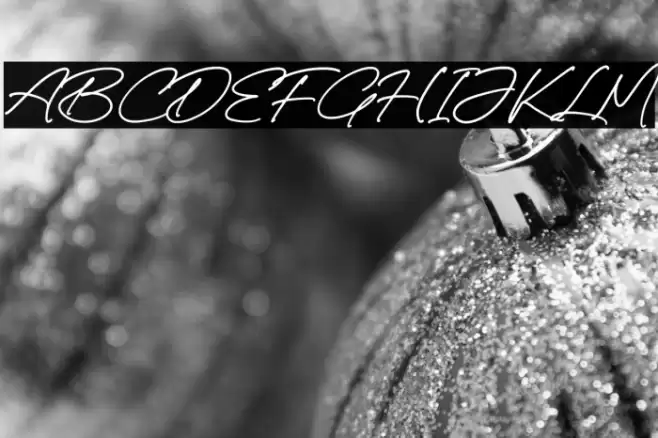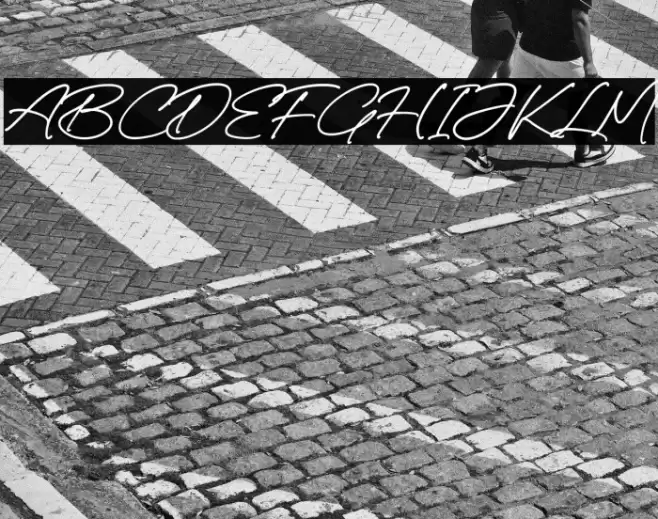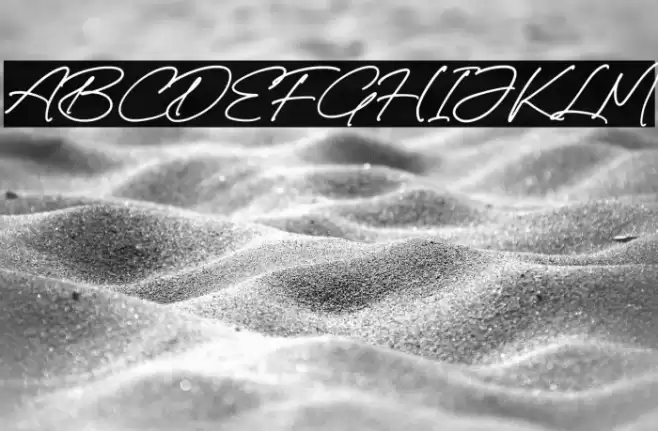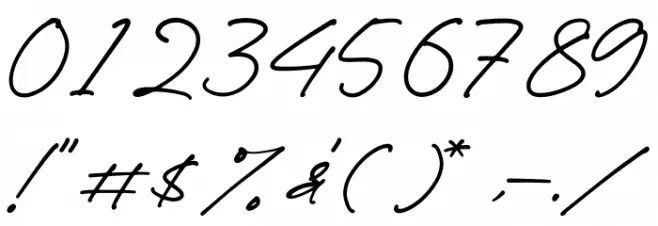
Rinatha Font
Rinatha Description
This font exudes a dynamic and elegant handwritten style, characterized by fluid and continuous strokes that mimic natural handwriting. The letters are connected in a cursive manner, providing a sense of flow and movement. The uppercase letters are slightly more structured, while the lowercase letters exhibit a more freeform and expressive style. The numerals and special characters maintain the same fluidity, ensuring consistency across all glyphs. This font is perfect for projects that require a personal touch or a sense of sophistication.
A fluid and elegant handwritten script font with connected cursive strokes from Uncategorized fonts.
- Font: Rinatha
- Proposed Projects: Ideal for wedding invitations, greeting cards, personal branding, and elegant stationery.
- Overall Style: Elegant, Handwritten
- Use Case: Logos, Invitations, Personal Branding
Rinatha UPPERCASE
Rinatha LOWERCASE
Rinatha OTHER CHARS